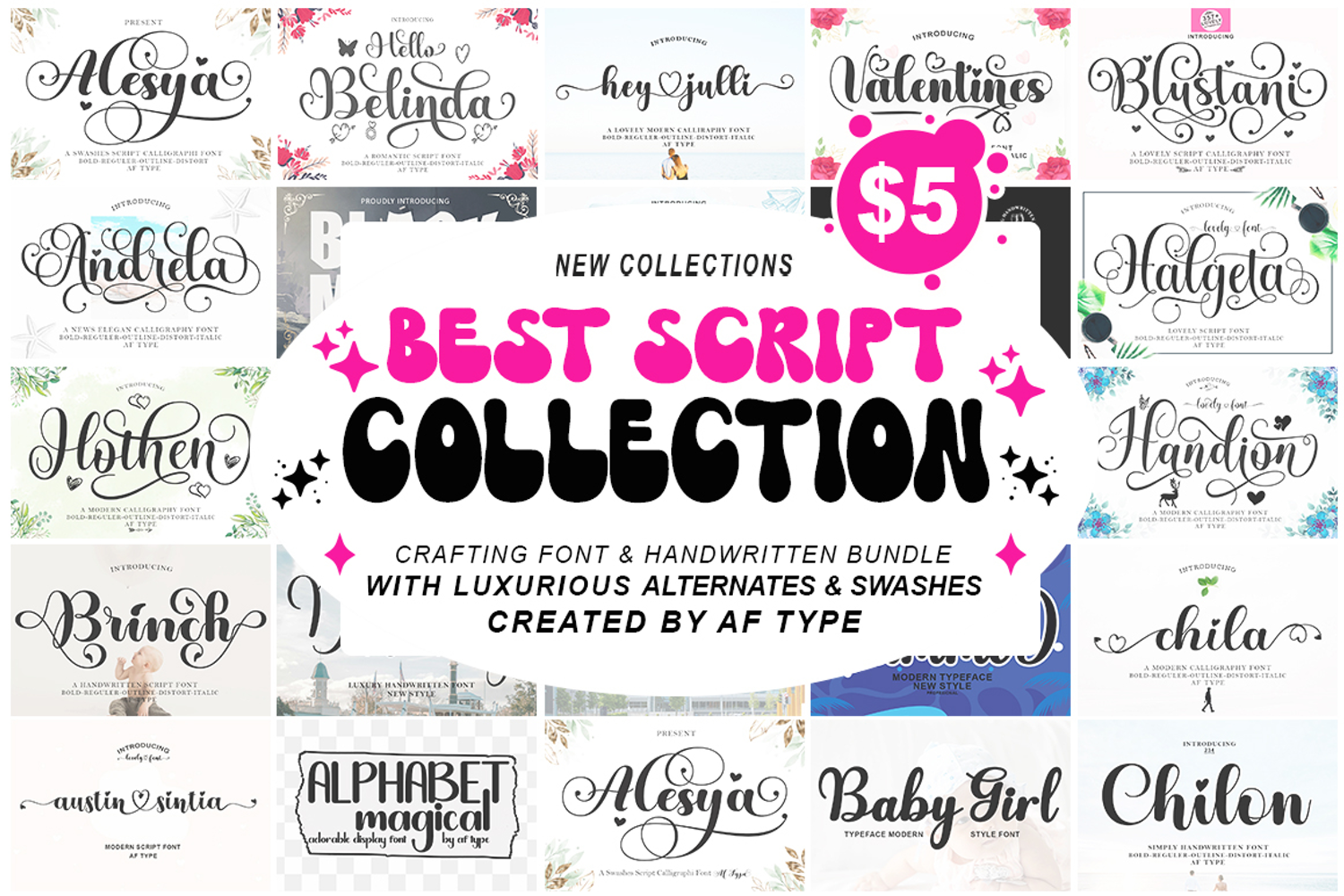
Best Script Font Bundle Collections
This pack includes a variety of font styles like calligraphy, signature, brush lettering, handwriting, and more, with hundreds of glyphs, including alternate languages, binders, sweeps, and international support.